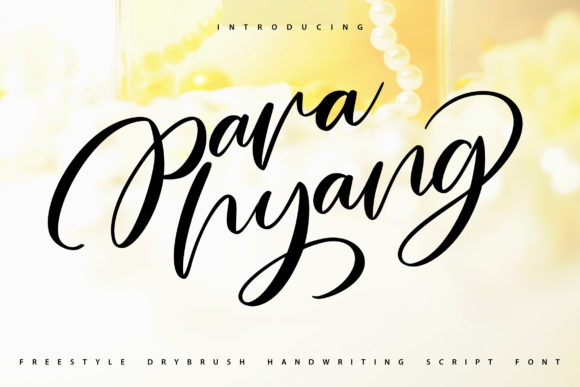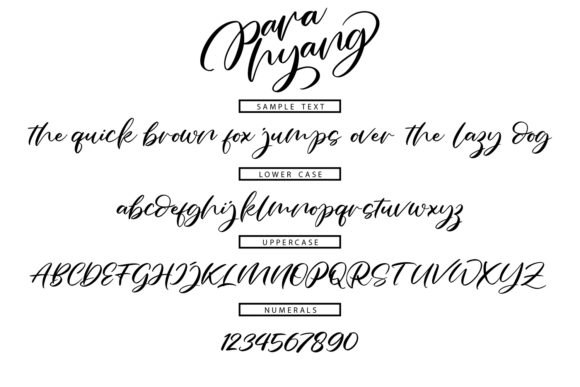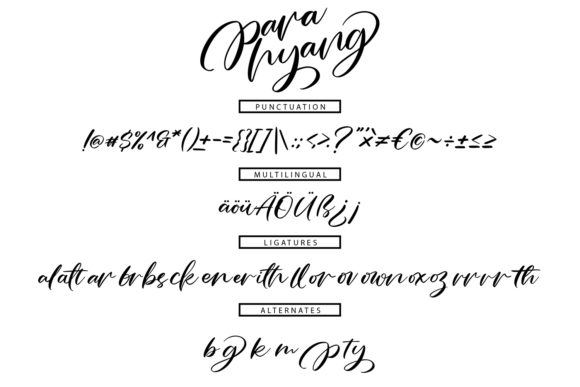
About Para Hyang Font
Para Hyang is a stylish and modern handwritten font that strikes the perfect balance between thin and thick strokes, resulting in a highly readable and visually appealing typeface. With its varied and well-balanced design, Para Hyang is the ideal choice for enhancing the beauty of your projects.
The font’s contemporary and chic style makes it versatile and suitable for a wide range of design applications. Whether you’re creating logos, branding materials, social media graphics, website headers, or any other design project, Para Hyang will add a touch of elegance and sophistication.
The readability of Para Hyang ensures that your message is conveyed clearly and effectively to your audience. Its distinct and well-designed characters make it easy to read, even in smaller sizes, making it perfect for body text as well as headlines and titles.
Para Hyang’s clean and modern look gives it a polished and professional appearance, making it suitable for both personal and commercial projects. Whether you’re designing invitations, greeting cards, posters, packaging, or any other creative work, Para Hyang will bring a stylish and refined touch to your designs.
The balanced and varied strokes of Para Hyang create a harmonious and pleasing aesthetic, making it a font that stands out without being overwhelming. It adds a touch of sophistication to your projects, making them look well-crafted and thoughtfully designed.
In summary, Para Hyang is a stylish, modern, and highly readable handwritten font that enhances the beauty of your projects. Its balanced and varied design, along with its readability and elegance, make it a versatile choice for a wide range of design applications. Whether you’re working on personal or commercial projects, Para Hyang will add a touch of sophistication and refinement to your designs, making them truly stand out.